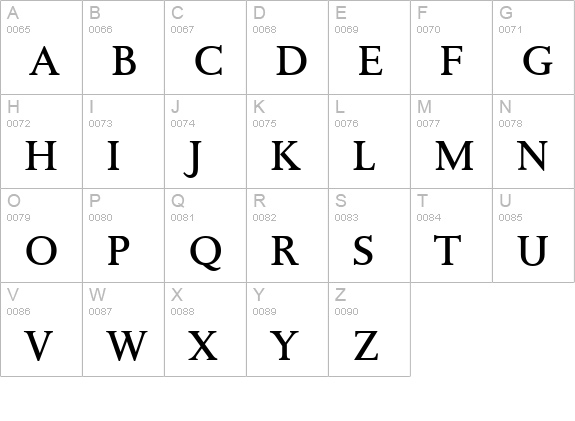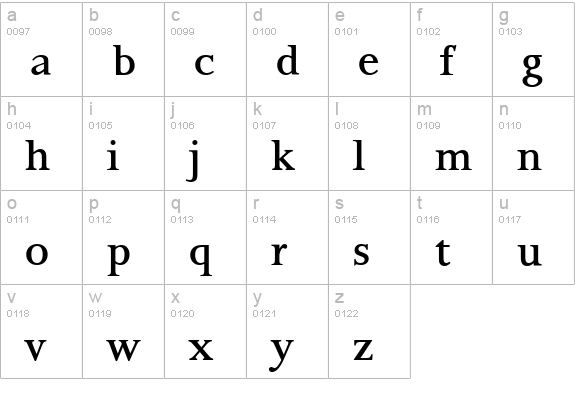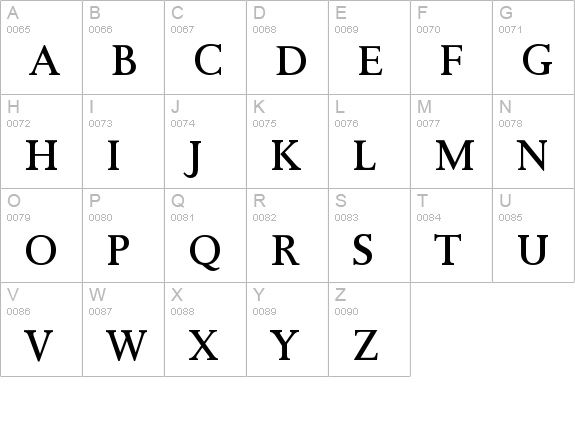
PalermoSerial-Regular Font Details
PalermoSerial-Regular is the standard, neutral variant in the PalermoSerial typeface family \xE2\x80\x94 well suited to general body text, paragraphs, and standard typographic work.
PalermoSerial-Regular font is a versatile and elegant typeface that exudes sophistication and modernity. Its clean lines and balanced proportions make it suitable for a wide range of design projects, from branding to web design. The font's timeless appeal and readability make it an excellent choice for both print and digital applications. What sets PalermoSerial-Regular font apart is that it is available for free download at FontsMarket.com. This means that designers and creatives can easily access this high-quality font without any cost, making it a valuable addition to their typography toolkit. With its classic yet contemporary design, PalermoSerial-Regular font is sure to enhance any project with its refined aesthetic and professional look. Download it today and elevate your designs with this stylish and versatile typeface.